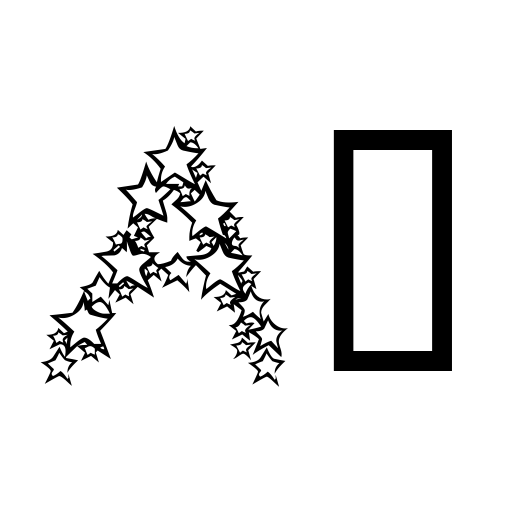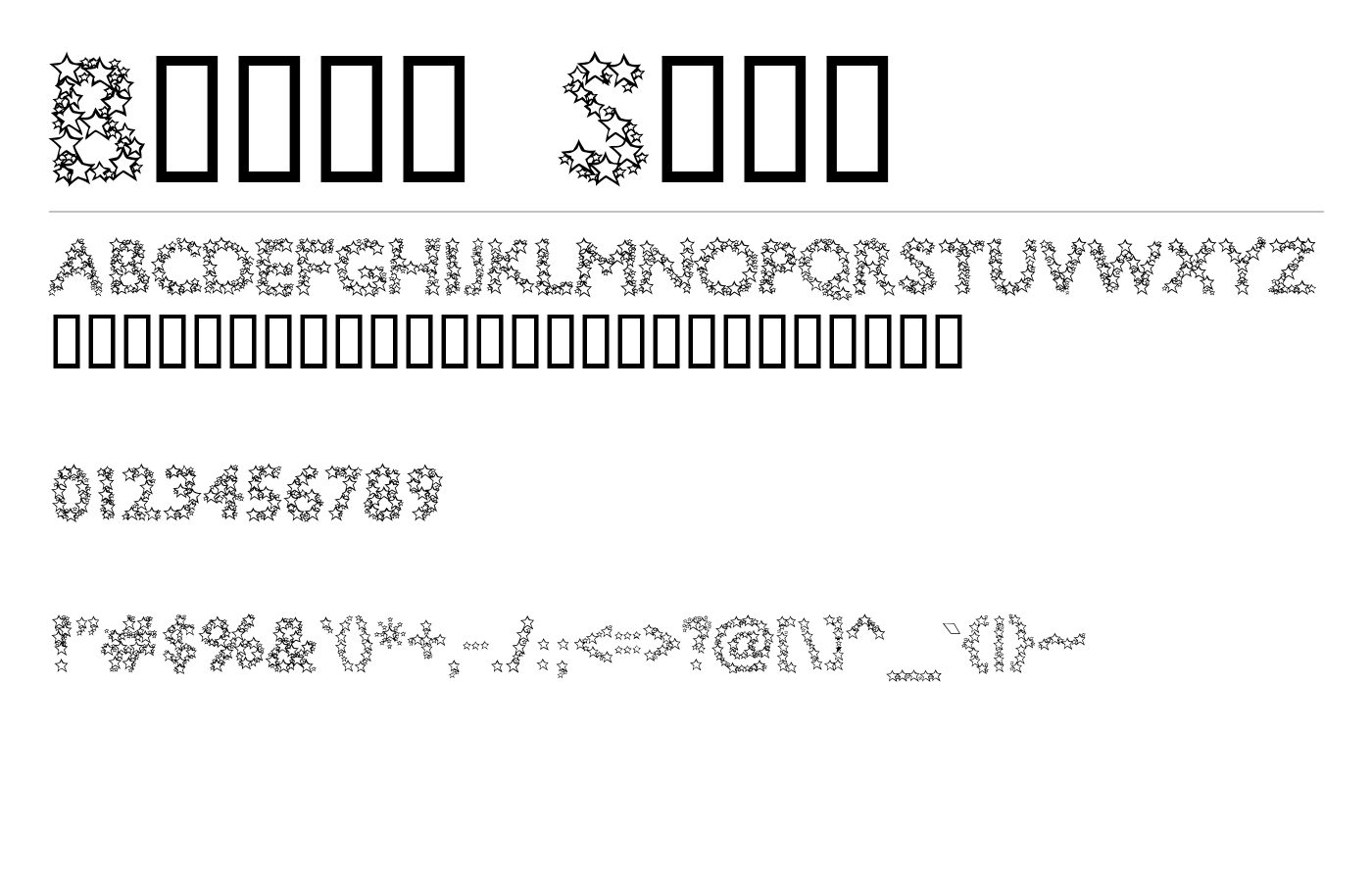
Bingo Star is a playful and decorative display font crafted entirely from small star shapes, giving it a whimsical and festive character. This unique sans serif style is best suited for fun, eye-catching headlines, party invitations, or creative branding where a joyful and lively mood is desired. Its intricate star pattern adds a sense of celebration and charm, making it ideal for projects that want to stand out with a spark of personality.
Bingo Star Font
About Bingo Star Font